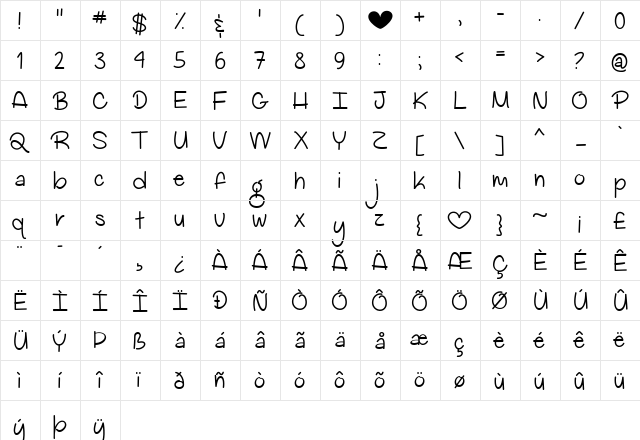
My Big Heart Demo Regular
| Foundry | Misti's Fonts |
| Designer | Misti's Fonts |
Design Context for My Big Heart Demo Typeface
My Big Heart Demo is a composed and adaptable typeface that performs quietly and consistently across a wide range of design contexts.